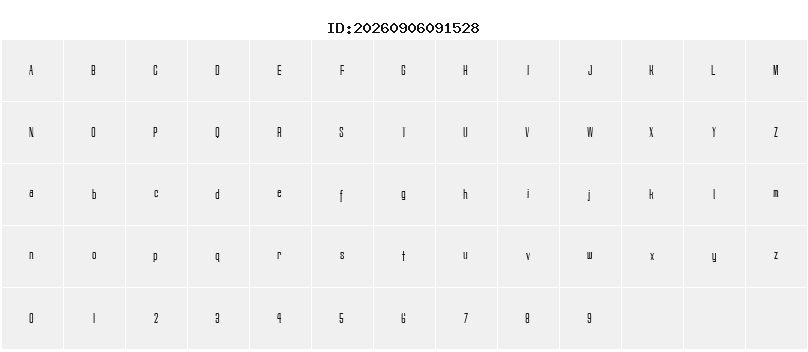
TechniqueLight Preview
• Font Name: TechniqueLight
• Full Font Name: TechniqueLight
About TechniqueLight.ttf
TechniqueLight.ttf is a modern, elegant sans-serif font designed for ultimate readability and visual harmony. Perfect for branding, headlines, web design, and print materials.